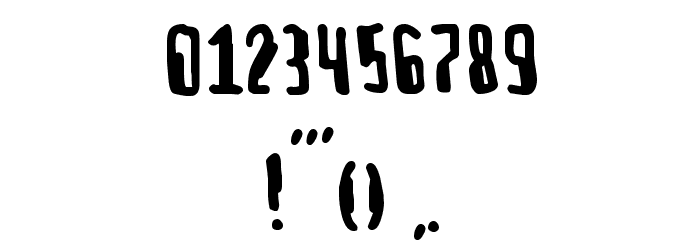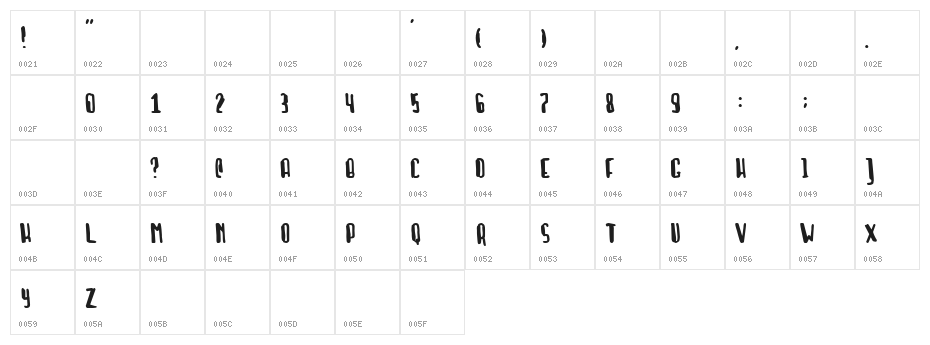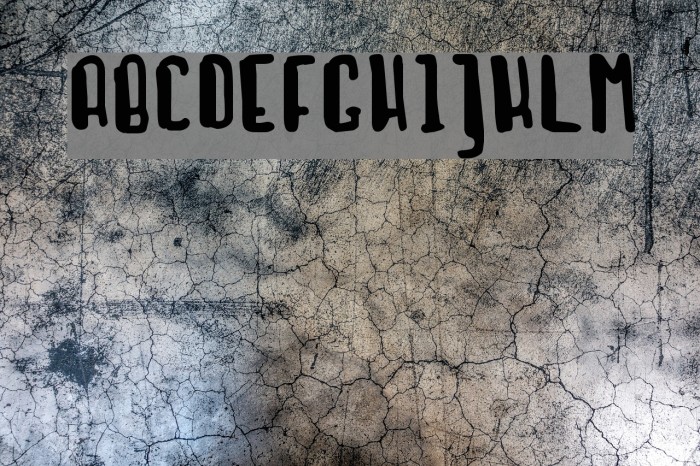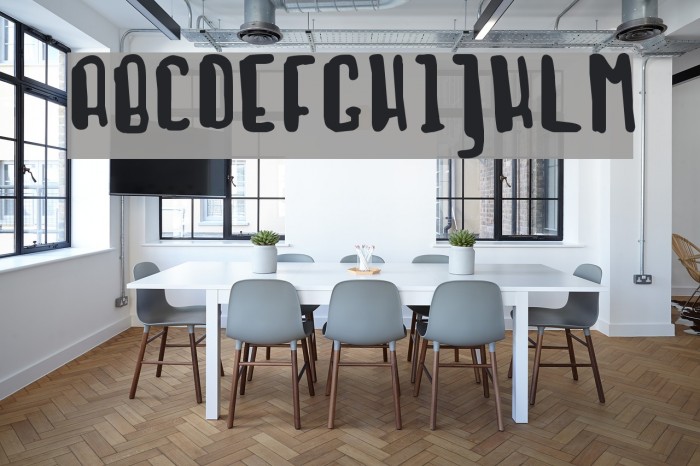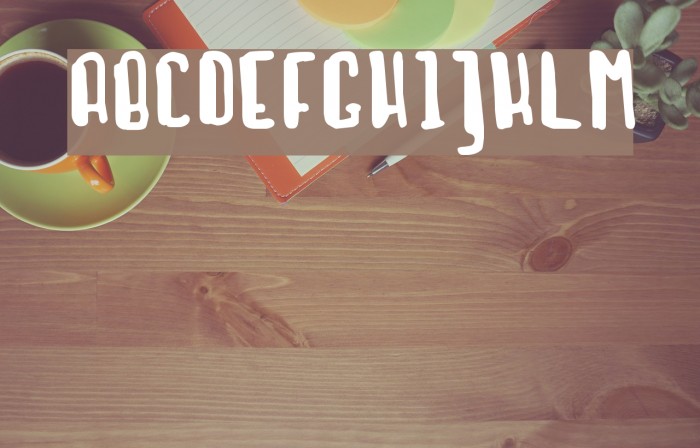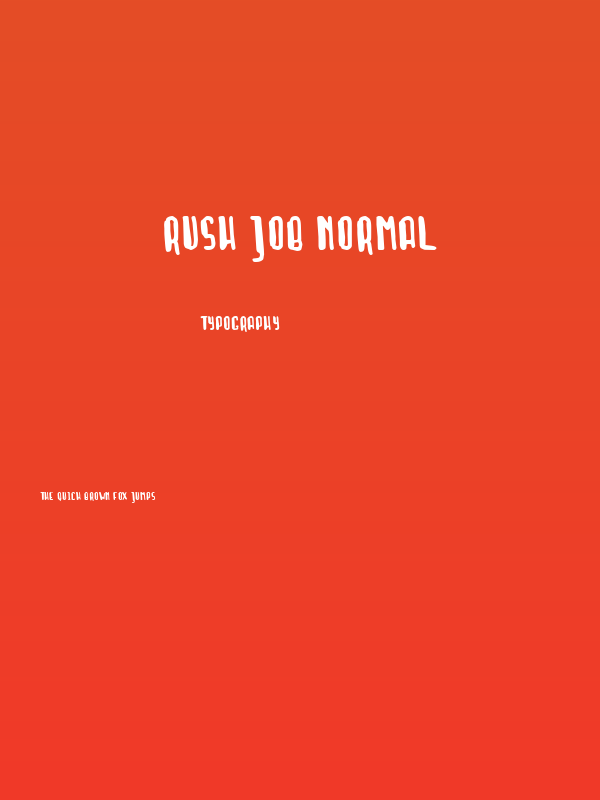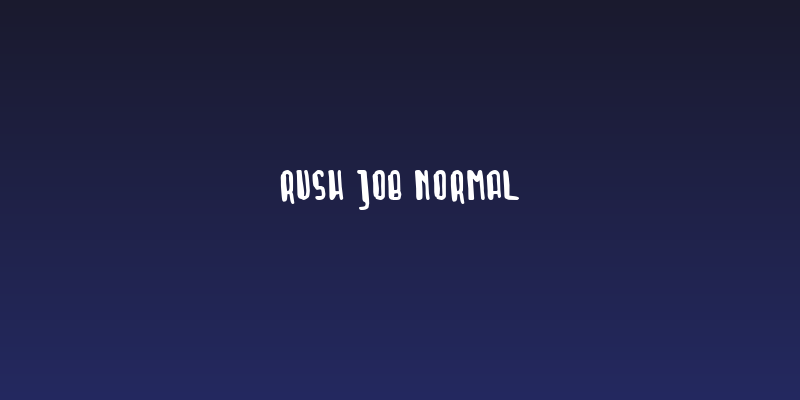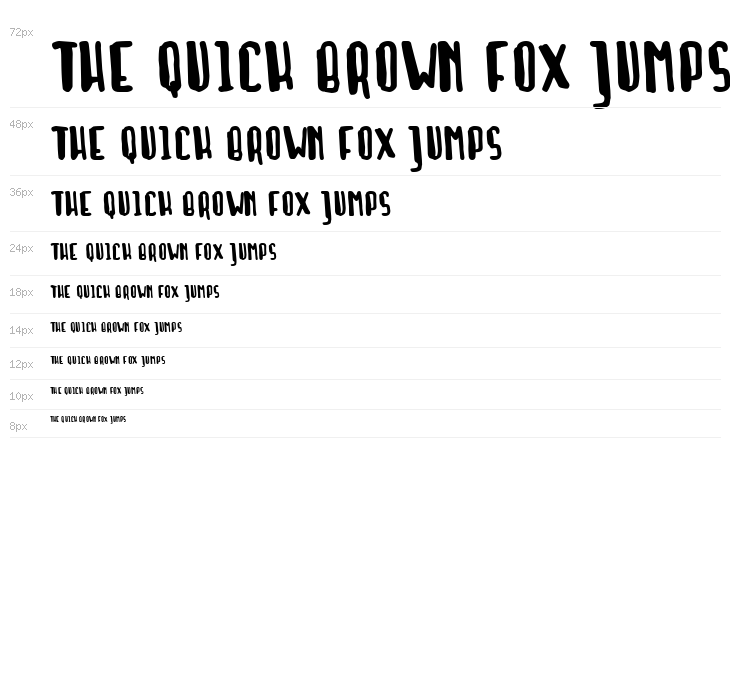
Rush Job Normal Font
Rush Job Normal Description
This font features a bold and playful style with a hand-drawn appearance. The characters are slightly irregular, giving it a casual and informal look. The strokes are thick and rounded, creating a friendly and approachable feel. The uppercase and lowercase letters maintain a consistent style, with a slight slant that adds to its dynamic nature. The numbers and special characters follow the same design principles, ensuring a cohesive overall appearance. This font is ideal for projects that require a fun and engaging aesthetic.
| Overall Style | Playful, Casual |
| Proposed Projects | Suitable for children's books, playful branding, casual invitations, and creative posters. |